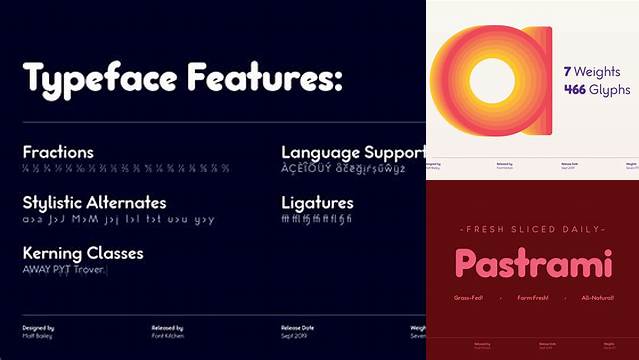
Hey guys! Are you on the hunt for a font that’s both modern and approachable? Look no further! Today, we're diving deep into the world of the Pastrami Rounded Sans Serif Font, a delightful typeface that’s been making waves in the design community. This font is not only visually appealing but also available for free download, making it a fantastic resource for designers, hobbyists, and anyone looking to add a touch of contemporary flair to their projects. Let's explore what makes Pastrami Rounded so special, where you can snag it for free, and how to best utilize it in your designs.
What Makes Pastrami Rounded Sans Serif Font Special?
So, what's the big deal about the Pastrami Rounded Sans Serif Font? Well, a few things really make it stand out. First off, the rounded terminals give it a soft, friendly vibe that's super versatile. Unlike sharp, angular fonts that can sometimes feel a bit harsh, Pastrami Rounded is all about approachability and warmth. This makes it perfect for projects where you want to convey a sense of trustworthiness, comfort, or playfulness.
Another key aspect is its sans serif nature. Sans serif fonts are known for their clean lines and lack of decorative serifs (those little feet or strokes at the end of letterforms). This simplicity lends Pastrami Rounded a modern, minimalist aesthetic that works well in a variety of contexts. Whether you're designing a website, creating marketing materials, or crafting a logo, its clean and crisp appearance ensures readability and visual appeal.
Furthermore, the font's legibility is top-notch. The letterforms are well-defined and carefully crafted, ensuring that text remains clear and easy to read, even at smaller sizes. This is particularly important for body text and user interfaces, where readability is paramount. The balanced proportions and consistent weight of the letters contribute to a harmonious reading experience.
In terms of versatility, Pastrami Rounded truly shines. It’s suitable for a wide range of applications, from branding and advertising to editorial design and web design. Its friendly and approachable aesthetic makes it an excellent choice for projects targeting a broad audience. Whether you’re designing a logo for a children’s product, creating a website for a tech startup, or crafting a poster for a community event, Pastrami Rounded can adapt to suit your needs.
The availability of different weights and styles within the Pastrami Rounded family further enhances its versatility. Some versions may include options for light, regular, bold, and italic styles, allowing you to create visual hierarchy and add emphasis to your designs. These variations provide you with the flexibility to fine-tune the font’s appearance and ensure that it complements your overall design concept. This adaptability makes it a valuable asset for any designer looking to create compelling and effective visual communications.
In conclusion, the Pastrami Rounded Sans Serif Font is a versatile and approachable typeface that’s perfect for a wide range of design projects. Its friendly aesthetic, clean lines, and excellent legibility make it a valuable asset for designers of all levels. By following these tips and guidelines, you can harness the power of Pastrami Rounded to create visually stunning and effective designs that resonate with your audience. So go ahead, download it for free, and start creating! Happy designing, guys!